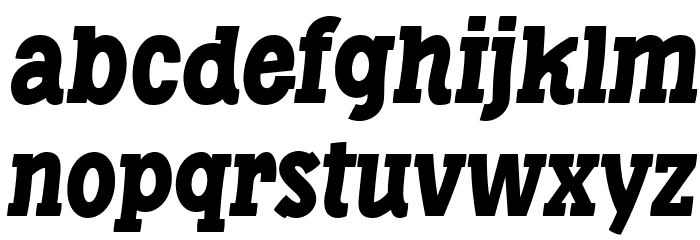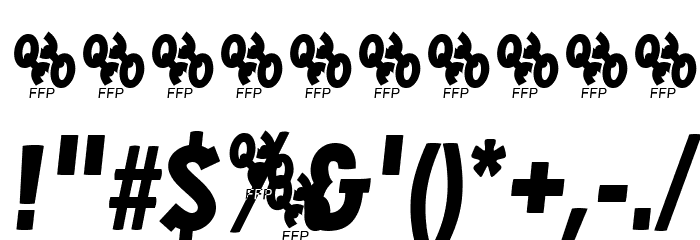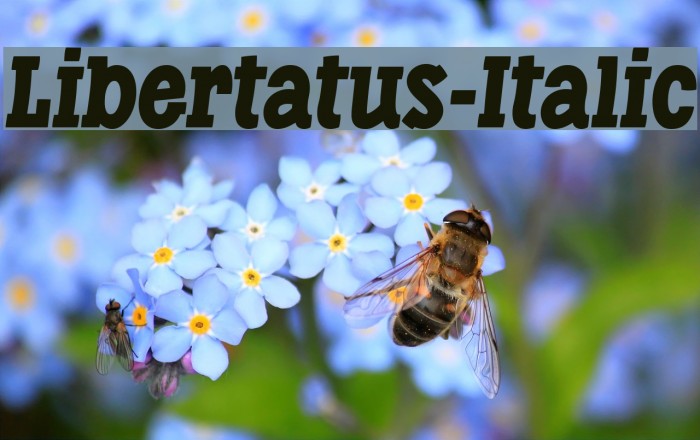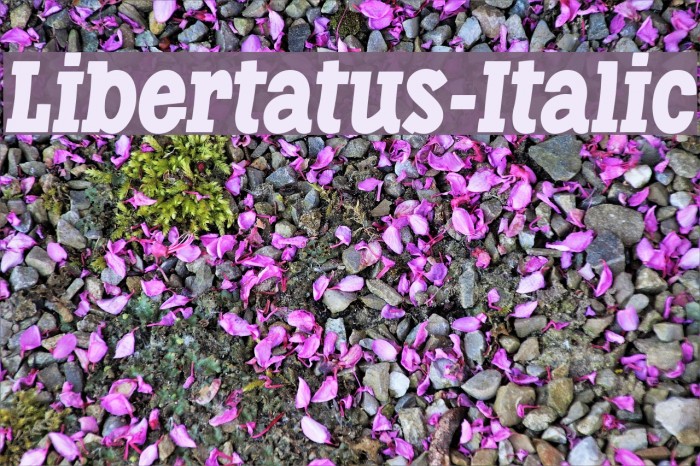
Libertatus-Italic Font
This font features a bold and dynamic italic style, characterized by its strong, slanted letterforms that convey a sense of movement and urgency. The strokes are thick and consistent, providing a robust and impactful appearance. The uppercase and lowercase letters maintain a harmonious balance, with slightly exaggerated curves that enhance its expressive nature. The numerals and special characters are designed to complement the alphabet, ensuring readability and coherence across various uses. This typeface is ideal for making statements and capturing attention.
A bold, dynamic italic font with strong, slanted letterforms.
- Proposed Projects: Ideal for headlines, posters, branding, and advertising where a strong, impactful presence is needed.